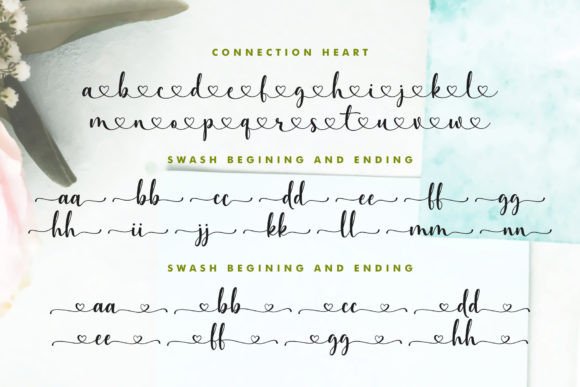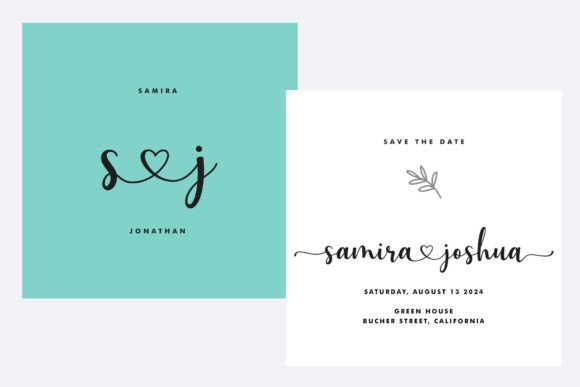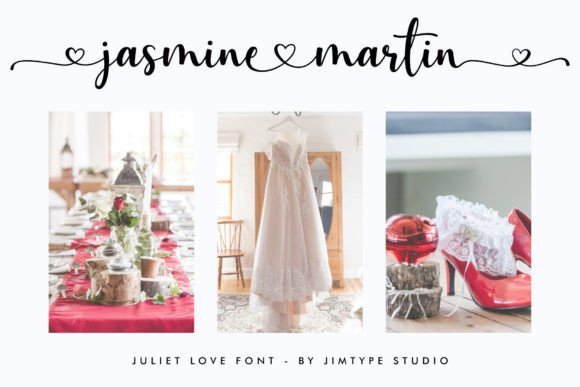
Juliet Love Font
About the Juliet Love Font
Presenting Juliet Love Font, a unique and stylish typeface that will make your work stand out. Introducing Juliet Love Font, a stunning typeface perfect for wedding themes, featuring elegant script swashes.
Unique heart connections between letters infuse your designs with a romantic charm, creating an unforgettable visual appeal.
Juliet Love Font is your go-to solution for projects that demand romance and elegance. Ideal for weddings, branding, and heartfelt designs, this font ensures your work radiates beauty and sophistication.
Juliet Love Font’s elegant script and swashes make it ideal for headlines, short text blocks on invitations or branding materials, and logos requiring a touch of romantic sophistication. It excels in projects where visual impact is paramount, such as wedding stationery, luxury product packaging, or short promotional materials. However, its highly decorative nature makes it unsuitable for body text or UI elements where readability is crucial. Long paragraphs set in this font would be difficult to read.
This font’s personality is undeniably romantic and elegant, yet retains a playful charm due to the unique letter connections. To complement this, pairing it with a clean sans-serif like Lato or Montserrat for body copy creates a balanced contrast. Alternatively, a classic serif font such as Garamond or Playfair Display could add a touch of timeless sophistication.
For a more modern feel, consider pairing Juliet Love Font with a geometric sans-serif like Futura or a minimalist script like Great Vibes for a secondary text element. Avoid pairing it with other highly decorative or ornate fonts, which could create visual clutter.
Juliet Love Font Usage Examples
Juliet Love Font Example